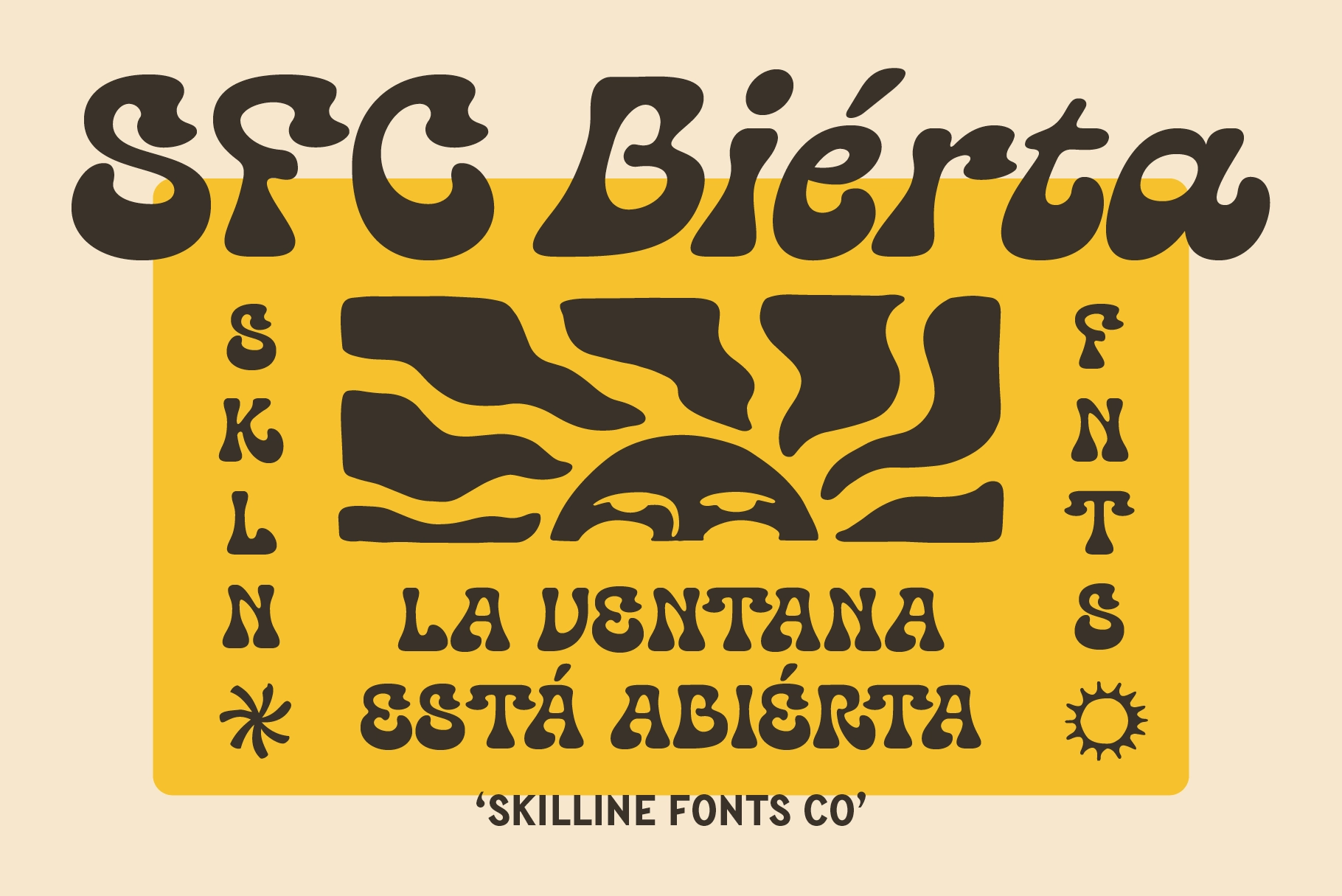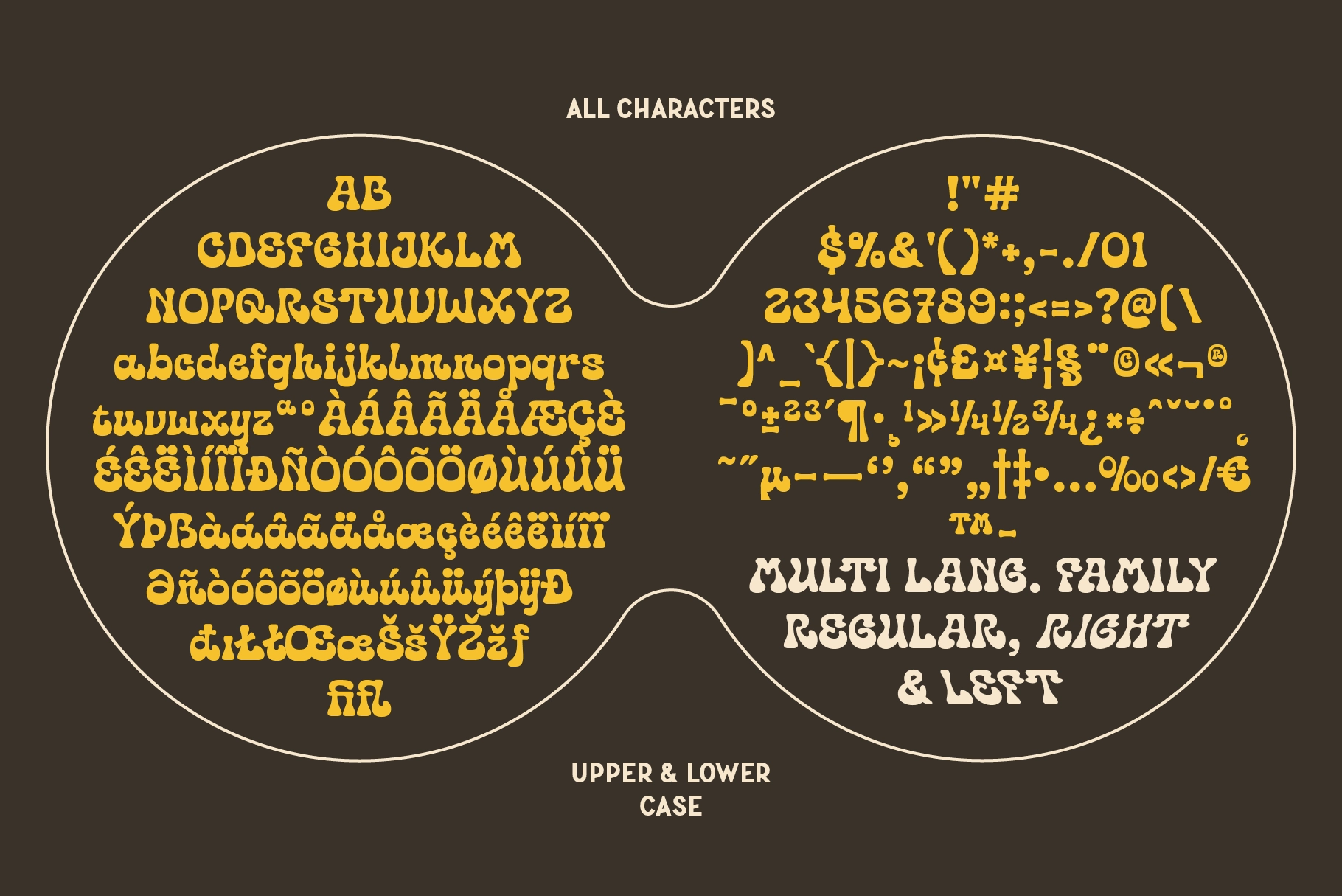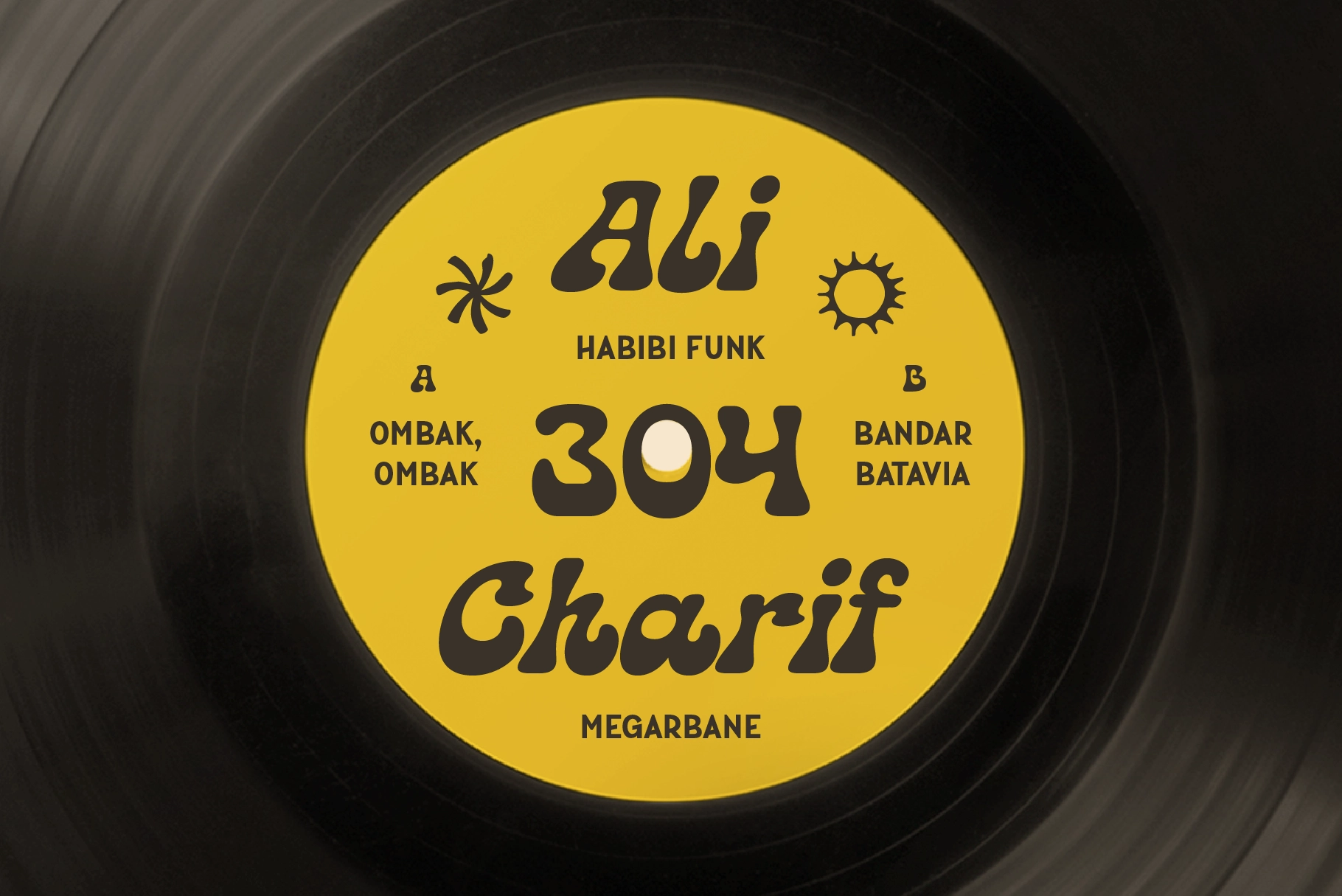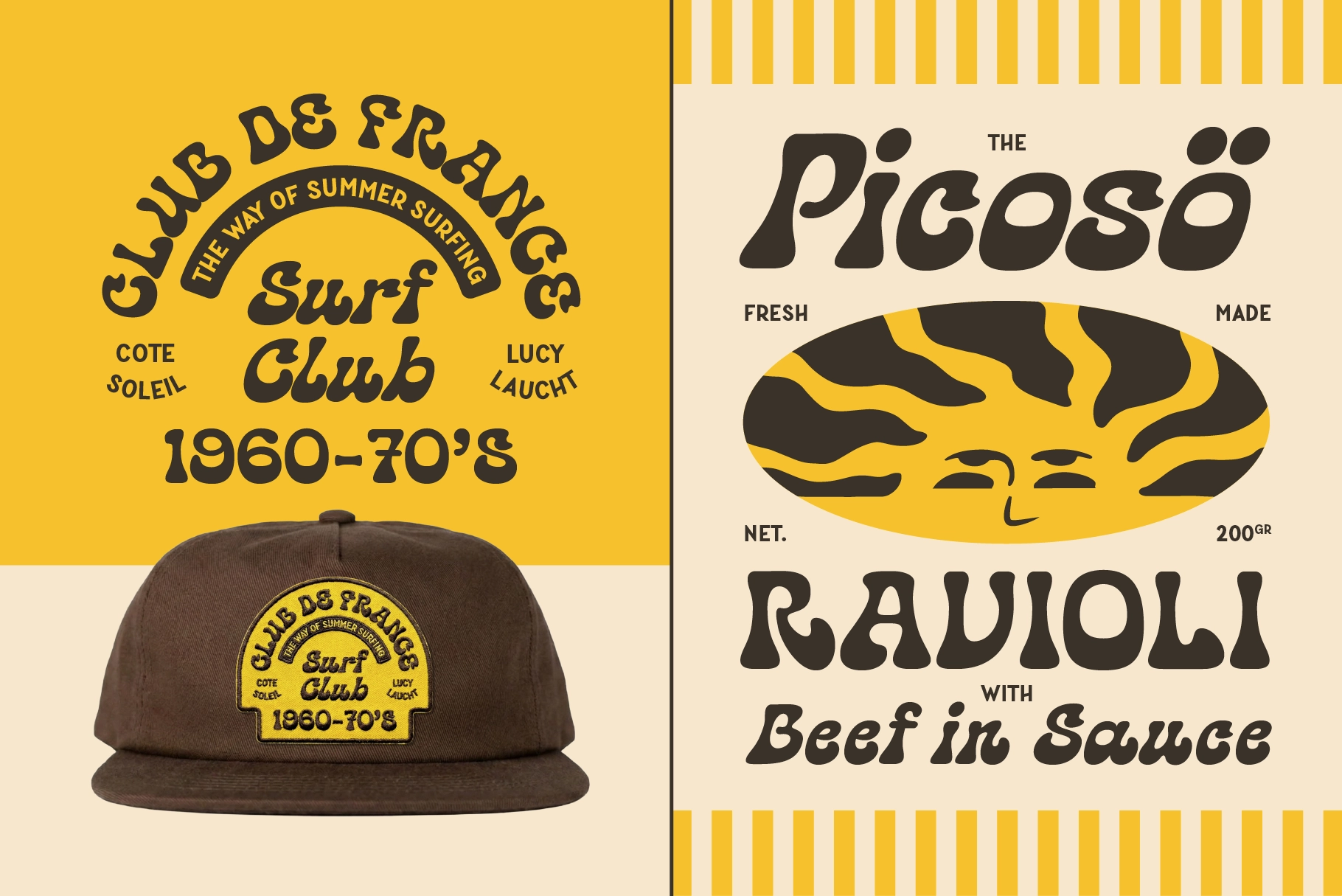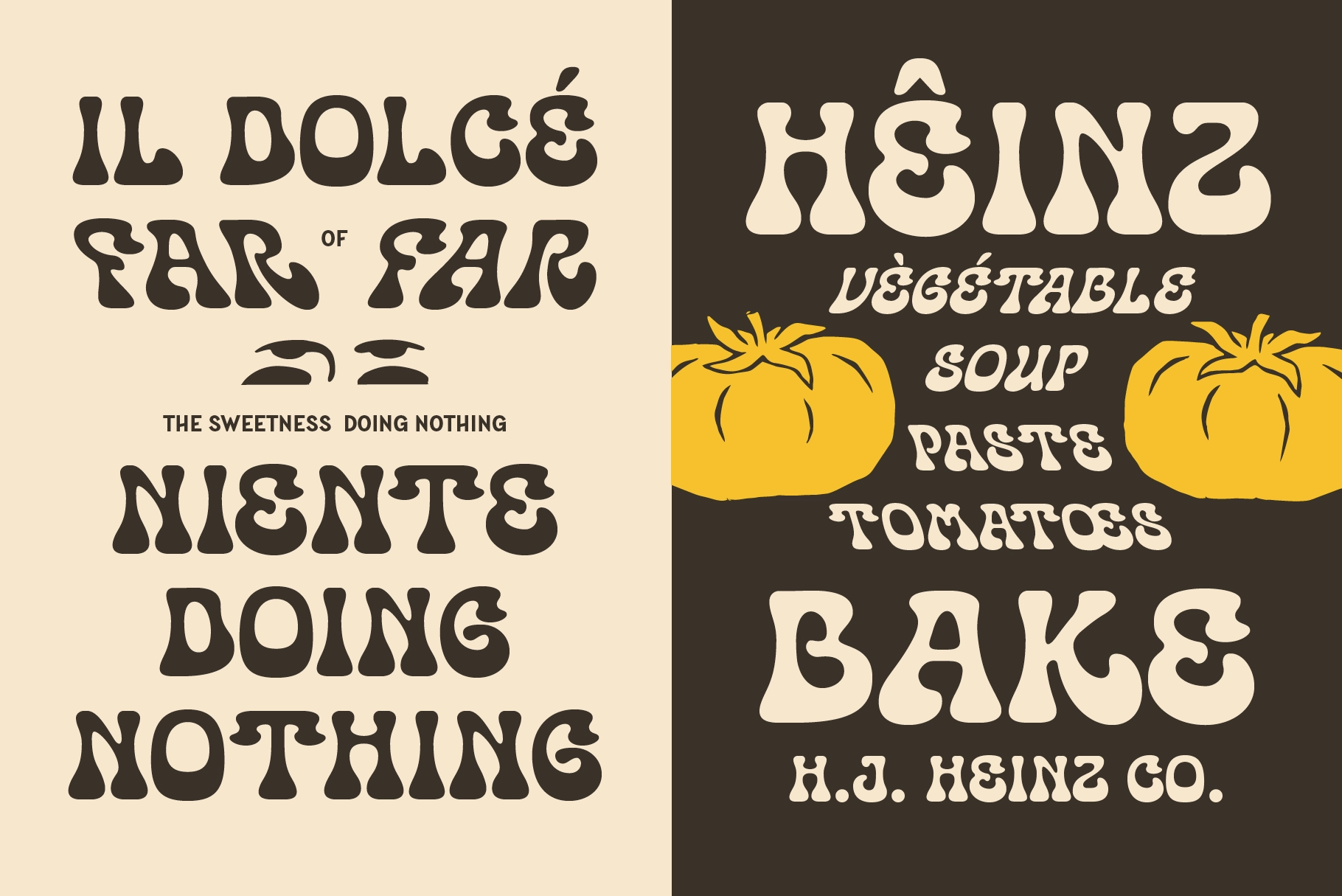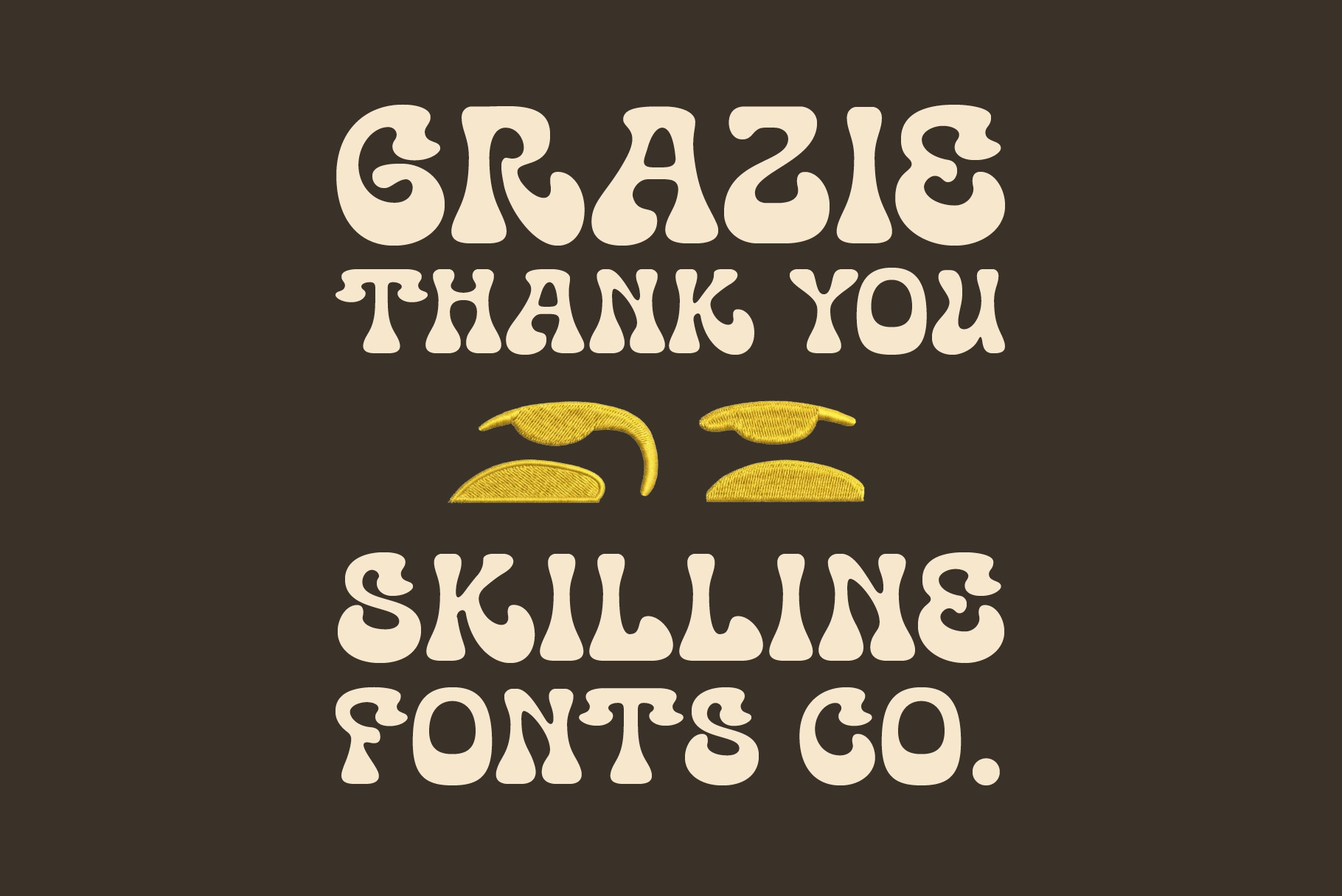
SFC Bierta – Groovy Funky Font
SFC Bierta – Groovy Funky Font is a bold retro display typeface inspired by 60s–70s psychedelic lettering, surf culture visuals, and vintage packaging design. With chunky curves, soft organic shapes, and playful proportions, it delivers a warm, funky, and nostalgic vibe with strong visual impact.
Designed for expressive, statement typography, Bierta is perfect for branding, album covers, packaging, merchandise, posters, labels, and editorial headlines. Its distinctive forms create eye-catching compositions while maintaining readability, bringing vintage groove into modern design.
- 3 Styles: Left, Regular, Right
- Uppercase & Lowercase Letters
- Symbols